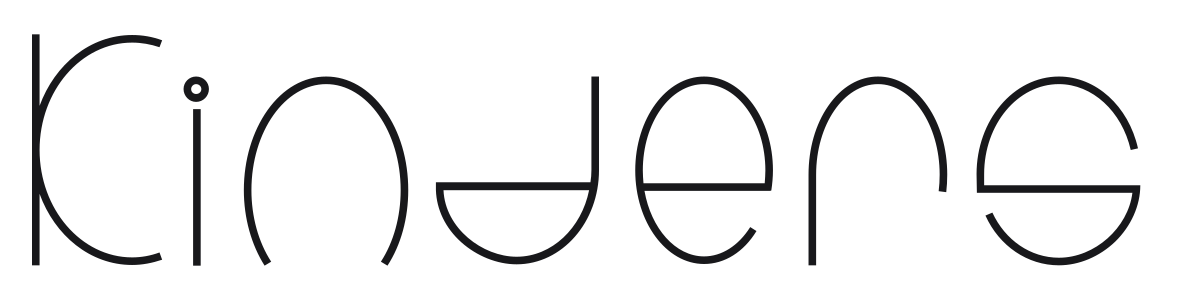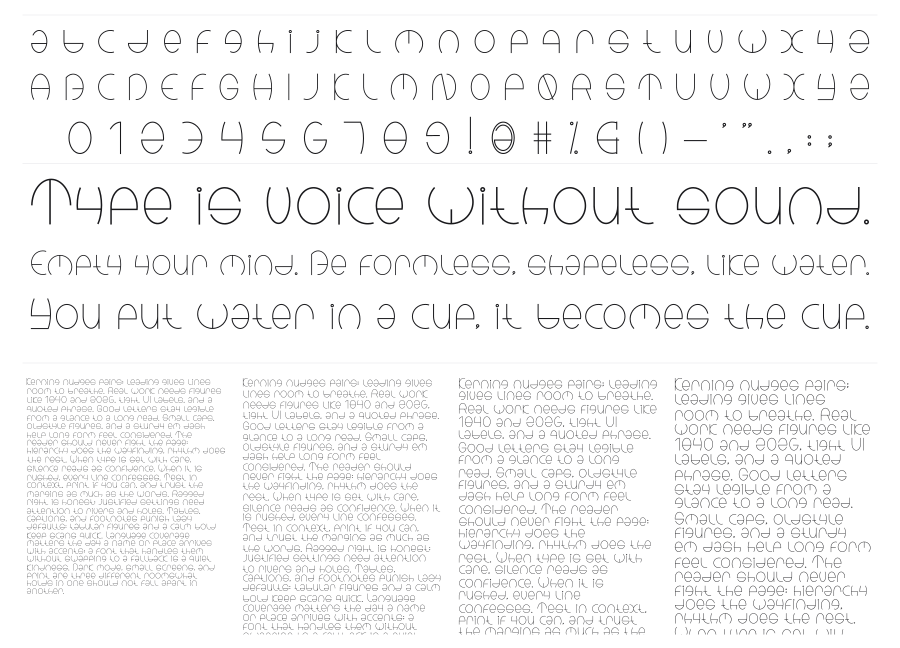
Kinders
Kinders is a hairline geometric display font constructed almost entirely from circles and arcs, giving it a dreamy, abstract quality. Each character feels like a puzzle piece made of curved strokes, lightweight to the point of near-invisibility at small sizes. It works best large, where the circular construction becomes the visual statement.